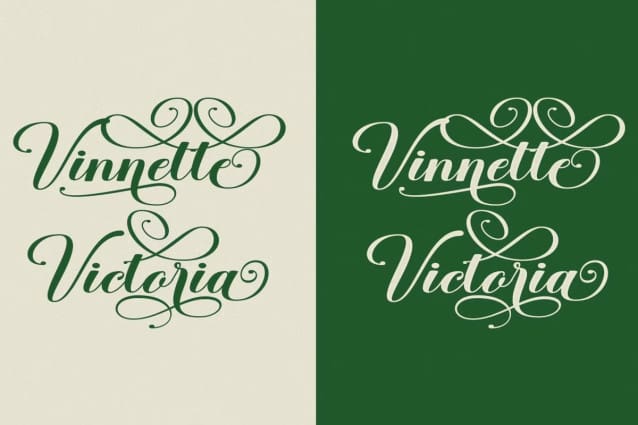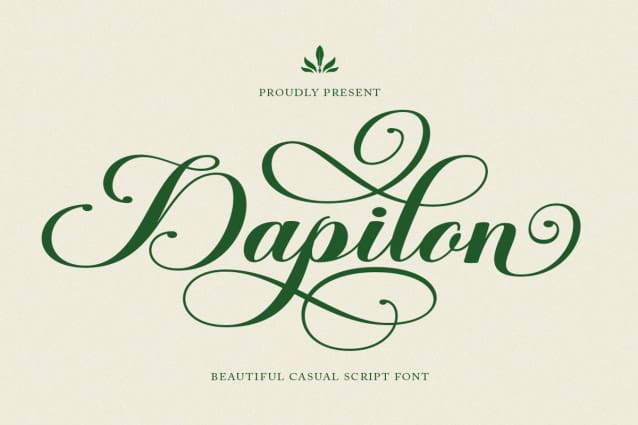
Dapilon Font
Dapilon Font – Modern Calligraphy Font, made with Natural & precision, perfect for branding, websites, and editorial designs. Includes all Characters letters, multilingual support, punctuation, binding. everything can be easily accessed using software that supports OpenType. What’s include: